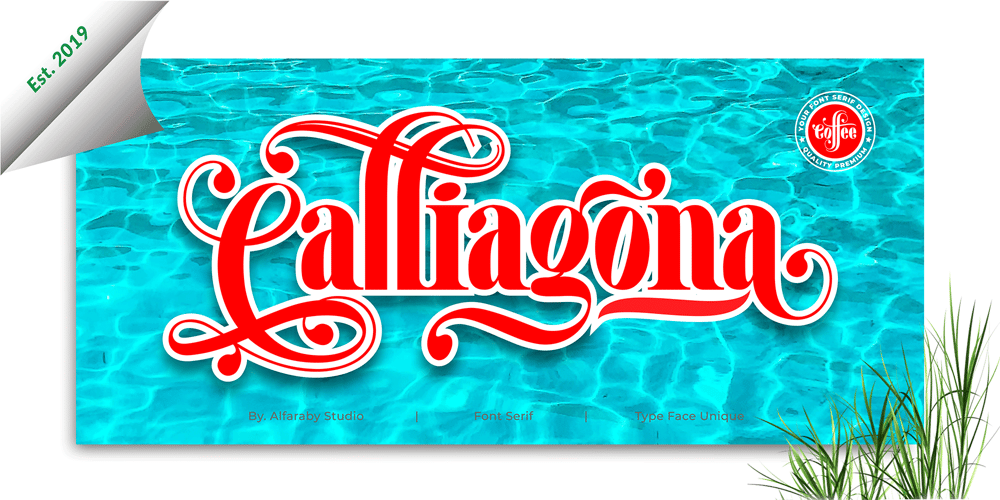
Calliagona Font Family was designed by Faizal Alfarabi and published by Alfaraby Studio. Calliagona contains 1 styles and family package options. Calliagona font Serif Font typeface with a sturdy structure, complements Swash + Alternates + Ligature + Ornament and is very comfortable for the reader, also simple in nature. very suitable for official media such as banners, magazines, newspapers, product name, logo, lebel, namebooks, and others. Font file Includes: Supported Languages: Breton, Catalan, Czech, Danish, Estonian, French, German, Hungarian, Icelandic, Italian, Romanian, Scottish Gaelic, Slovak, Latvian, Lithuanian, Norwegian, English, Finnish, Polish, Portuguese, Slovenian, Spanish, Swedish, Turkish, Welsh . Basically, all European languages are based on the Latin alphabet. Thank you purchase!.